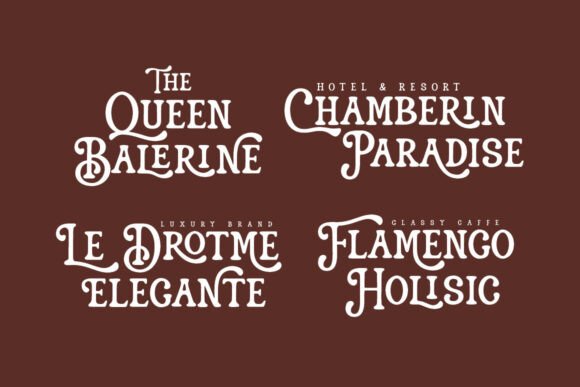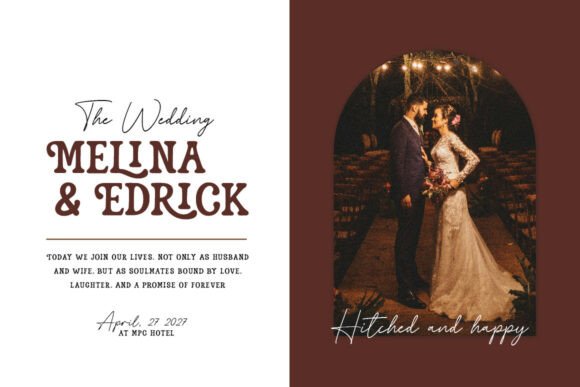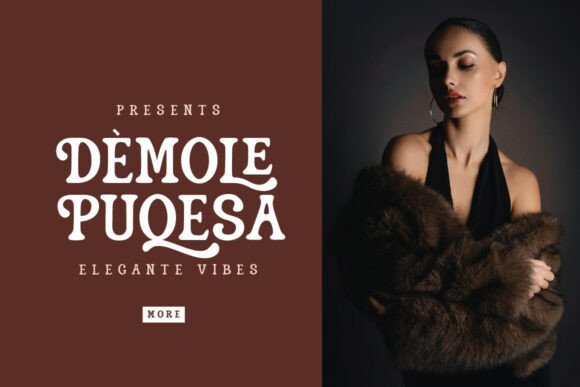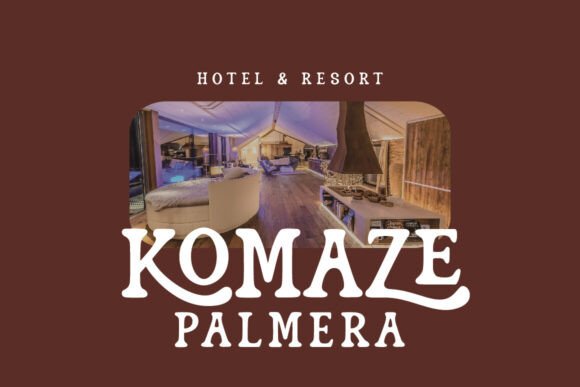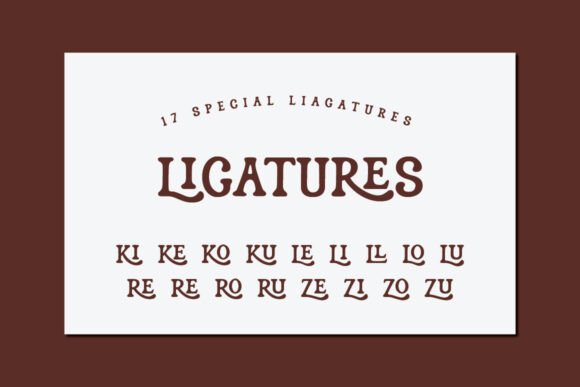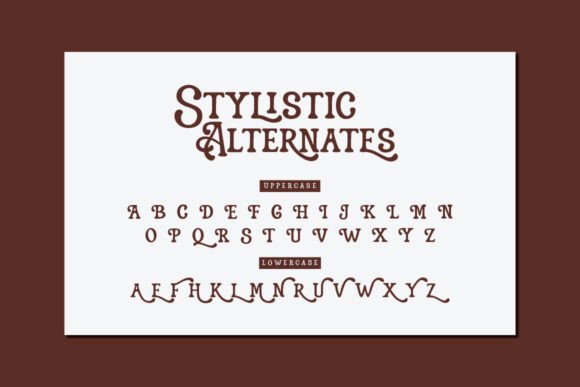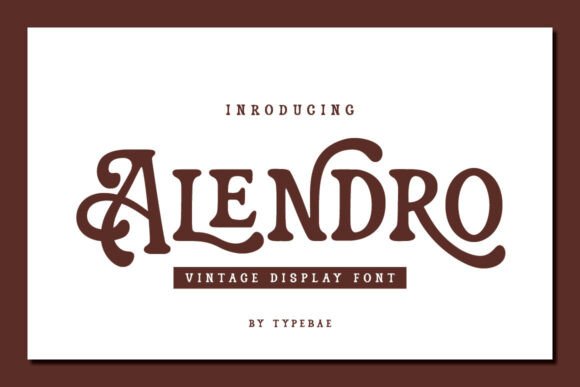
Introducing Alendro Font: Elevate Your Design with a Luxurious Retro Flair
In the world of typography, fonts play a crucial role in conveying the tone and personality of a brand. For designers and crafters looking to add a touch of sophistication and playfulness to their work, Alendro Font is an excellent choice. This stylish vintage display font is designed to bring a luxurious retro vibe to any design, making it perfect for a wide range of applications.
The Charm of Alendro Font
Alendro Font boasts graceful curves and ornate letterforms that exude a sense of elegance and refinement. Its unique blend of retro and playful elements makes it an ideal choice for designers seeking to create a distinctive visual identity. Whether you’re working on a branding project, packaging design, logo, headline, or boutique label, Alendro Font is sure to make a lasting impression.
Perfect for High-End Designs
Alendro Font is particularly well-suited for high-end designs that require a touch of luxury and sophistication. For instance, if you’re crafting a classy cafe identity, this font can help you achieve a vintage-chic look that’s sure to appeal to discerning customers. Similarly, if you’re working on a high-end fashion label, Alendro Font can add a level of elegance and refinement that’s perfect for showcasing your brand’s style and sophistication.
Key Features of Alendro Font
- Luxurious retro vibe: Alendro Font’s unique blend of vintage and playful elements makes it perfect for designs that require a touch of sophistication and elegance.
- Graceful curves and ornate letterforms: The font’s distinctive curves and ornate letterforms add a level of refinement and luxury to any design.
- Versatile: Alendro Font is suitable for a wide range of applications, including branding, packaging, logos, headlines, and boutique labels.
- Timeless and artistic: This font’s classic design ensures that it will remain timeless and artistic, even as design trends evolve.
How to Use Alendro Font in Your Design
- Pair it with a neutral font: Combine Alendro Font with a neutral font to create a striking contrast that adds visual interest to your design.
- Experiment with colors: Alendro Font looks great in a range of colors, from rich jewel tones to soft pastels. Experiment with different colors to find the perfect combination for your design.
- Use it sparingly: While Alendro Font is perfect for headlines and titles, it’s best to use it sparingly to avoid overwhelming your design.
Why Choose Alendro Font?
- Unique and distinctive: Alendro Font’s unique blend of retro and playful elements makes it stand out from more traditional fonts.
- Elegant and refined: The font’s graceful curves and ornate letterforms add a level of sophistication and elegance to any design.
- High-quality design: Alendro Font is designed to the highest standards, ensuring that it will look great in any design.
In conclusion, Alendro Font is a stylish vintage display font that’s perfect for designers and crafters looking to add a touch of luxury and sophistication to their work. With its unique blend of retro and playful elements, elegant curves and ornate letterforms, and versatile design, Alendro Font is sure to elevate your visual message and make a lasting impression.